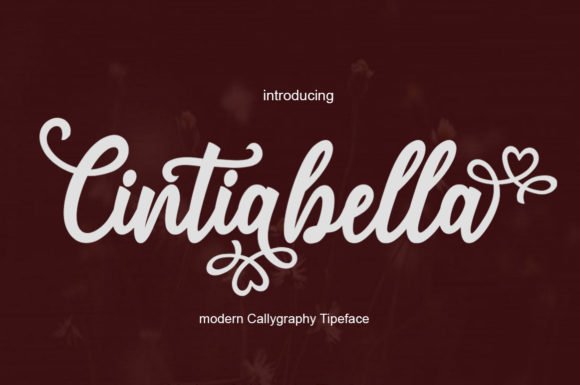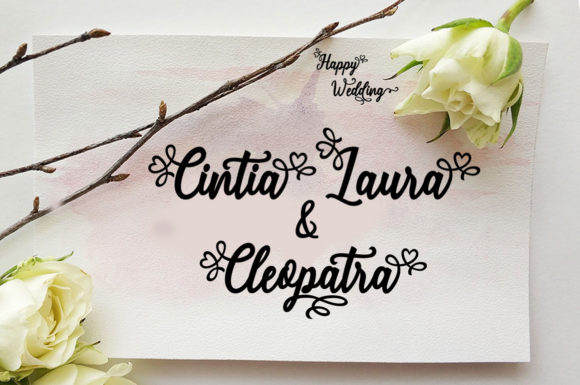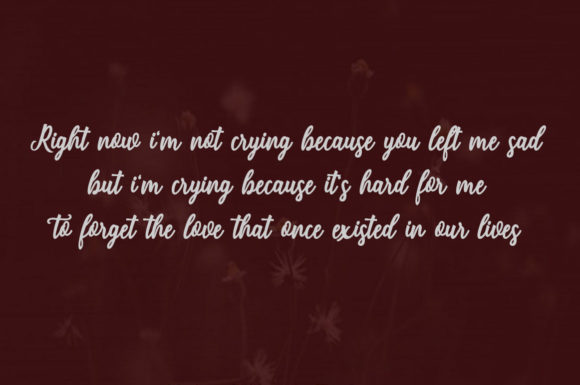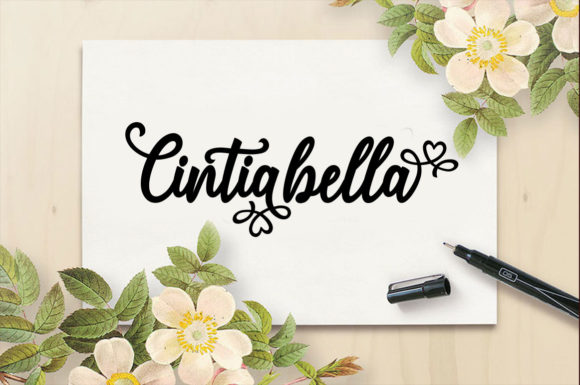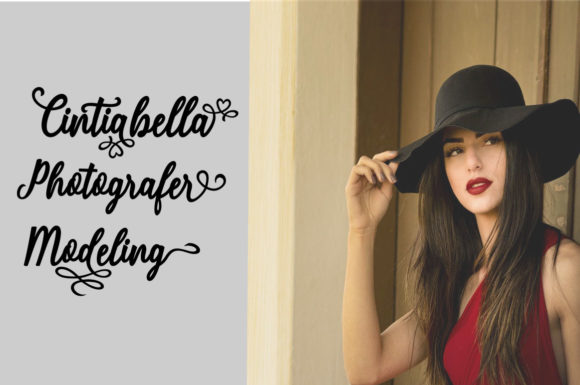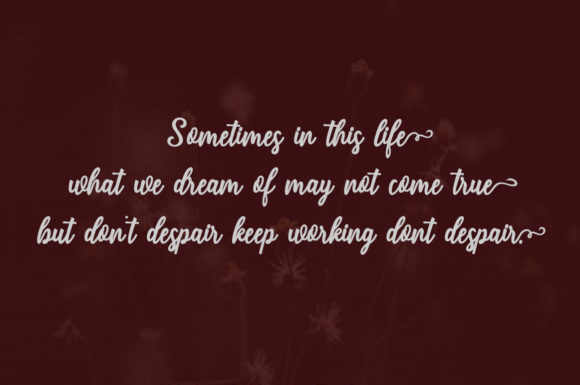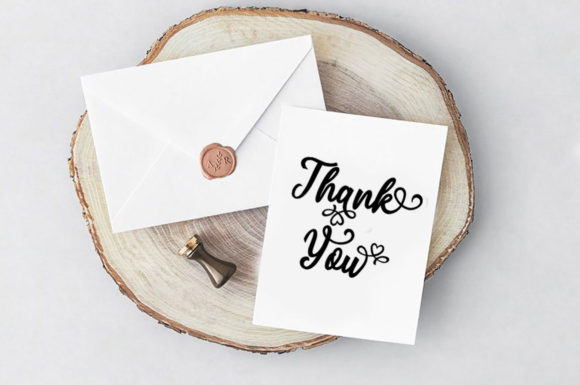
Unleashing the Magic of Cintiabella Font
Have you ever been scrolling through your social media feed, and suddenly, you come across a beautifully crafted design that stops you in your tracks? The elegant handwriting, the subtle flair, and the perfect balance of sophistication and whimsy all come together to create a visual masterpiece that leaves you breathless. As a designer, you know that moments like these are the result of careful attention to detail and a deep understanding of typography.
Cintiabella Font is a carefully crafted, magical handwritten font that will elevate your design projects to new heights. Whether you’re working on branding, headings, wedding designs, invitations, signatures, logos, labels, or anything in between, this font is the perfect tool to add that extra touch of elegance and sophistication. With Cintiabella Font, you’ll be able to create designs that are not only visually stunning but also uniquely yours.
Cintiabella Font Key Features
- Font Family: Cintiabella
- Unique Characteristics: Cintiabella font features elegant, cursive script with a touch of classic sophistication, making it ideal for formal and professional applications
Cintiabella Font Review
Overall, I was quite impressed with the Cintiabella Font. It has a unique and elegant feel to it that makes it perfect for various design projects. ✨ One of the things that caught my attention was its high x-height, which makes it highly readable even in smaller font sizes.
Here are some of the features that I liked about the Cintiabella Font:
- ✨ Elegant and refined feel, making it perfect for luxury brands
- ✨ Highly legible in various font sizes
- ✨ Supports both Latin and Cyrillic scripts
However, like any other font, the Cintiabella Font has its limitations:
- ⚠️ May not be suitable for projects that require bold, attention-grabbing headlines
- ⚠️ Limited availability of italic and bold variants
- ⚠️ May not work well in low-resolution displays or print materials
Overall, I would say that the Cintiabella Font is a great addition to any designer’s toolkit. Its unique feel and high readability make it perfect for various design projects, from luxury branding to editorial content. However, it may not be the best choice for projects that require bold, attention-grabbing headlines or limited availability of font variants.
Tips for Getting the Most Out of Cintiabella Font
To get the most out of the Cintiabella font, try the following tips:
- Use the font in combination with other elegant fonts to create a sophisticated look.
- Use Cintiabella Font for the main text and headings.
- Pair it with watercolor illustrations or floral patterns to create a whimsical feel.
- Combine it with metallic foils or embossing to add a touch of luxury.
- Use Cintiabella Font for the menu headings and item names.
- Pair it with a bold and modern color scheme to create a striking visual effect.
- Combine it with high-quality images of the dishes to make the menu board more appealing.
- Use Cintiabella Font for the main text and headings.
- Pair it with vintage-style illustrations or photographs to create a nostalgic feel.
- Combine it with textured backgrounds or aged paper effects to add a touch of authenticity.